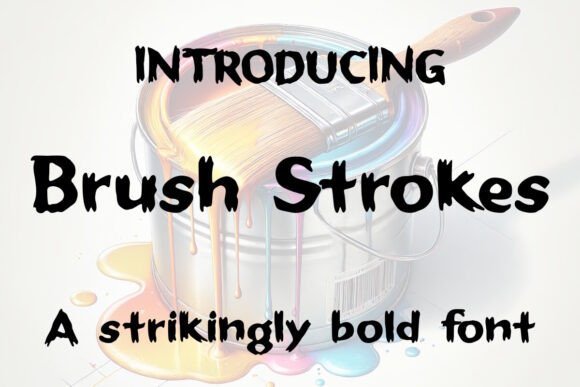
Unleash Your Inner Artist with the Brush Strokes Font
You know that moment when you’re brainstorming a new design project, and the ideas start flowing like a creative storm? The possibilities are endless, and you’re itching to bring your vision to life. For designers, this moment is often the most exciting – and the Brush Strokes Font is the perfect tool to capture that energy.
With its bold, expressive style and hand-painted feel, the Brush Strokes Font is designed to add a touch of raw, artistic flair to your work. From posters to social media graphics, this typeface is perfect for making a statement and standing out from the crowd. Whether you’re a seasoned designer or just starting out, the Brush Strokes Font is an invaluable addition to your creative toolkit.
Brush Strokes Font Key Features
- Font Family: A unique, hand-painted font with a natural, artistic feel.
- Unique Characteristics: Features subtle brush strokes, texture, and imperfections that evoke a sense of handmade craftsmanship.
Brush Strokes Font Review
Overall, I’m really impressed with the Brush Strokes Font. It’s a beautifully crafted font that brings a touch of hand-drawn elegance to any design. ✨ I love the way the letters are carefully crafted to mimic the look of real brush strokes, giving it a unique and eye-catching feel.
One of the things that really stands out about Brush Strokes is its versatility. It’s perfect for creating a wide range of designs, from elegant invitations to playful graphics. ✨ It’s also incredibly easy to use, with a wide range of weights and styles to choose from.
- Unique, hand-drawn feel
- Highly versatile and adaptable
- Easy to use and customize
- Perfect for creating elegant and playful designs
- May not be suitable for large blocks of text
- Can be difficult to read at small font sizes
- Not as widely supported as some other fonts
Overall, I think Brush Strokes is a fantastic addition to any designer’s toolkit. While it may have some limitations, its unique charm and versatility make it a must-have for any design project. ✨
Tips for Getting the Most Out of Brush Strokes Font
Use Brush Strokes Font for creative and artistic designs, such as posters, flyers, and social media graphics.
Combine Brush Strokes Font with other creative elements, such as illustrations and graphics, to add visual interest to your design.
Experiment with different font sizes, colors, and styles to achieve the desired look and feel for your design.
Common Use Cases for Brush Strokes Font
Brush Strokes Font is ideal for creative and artistic designs, such as:
Posters and flyers
Social media graphics
Infographics
Invitations and event graphics